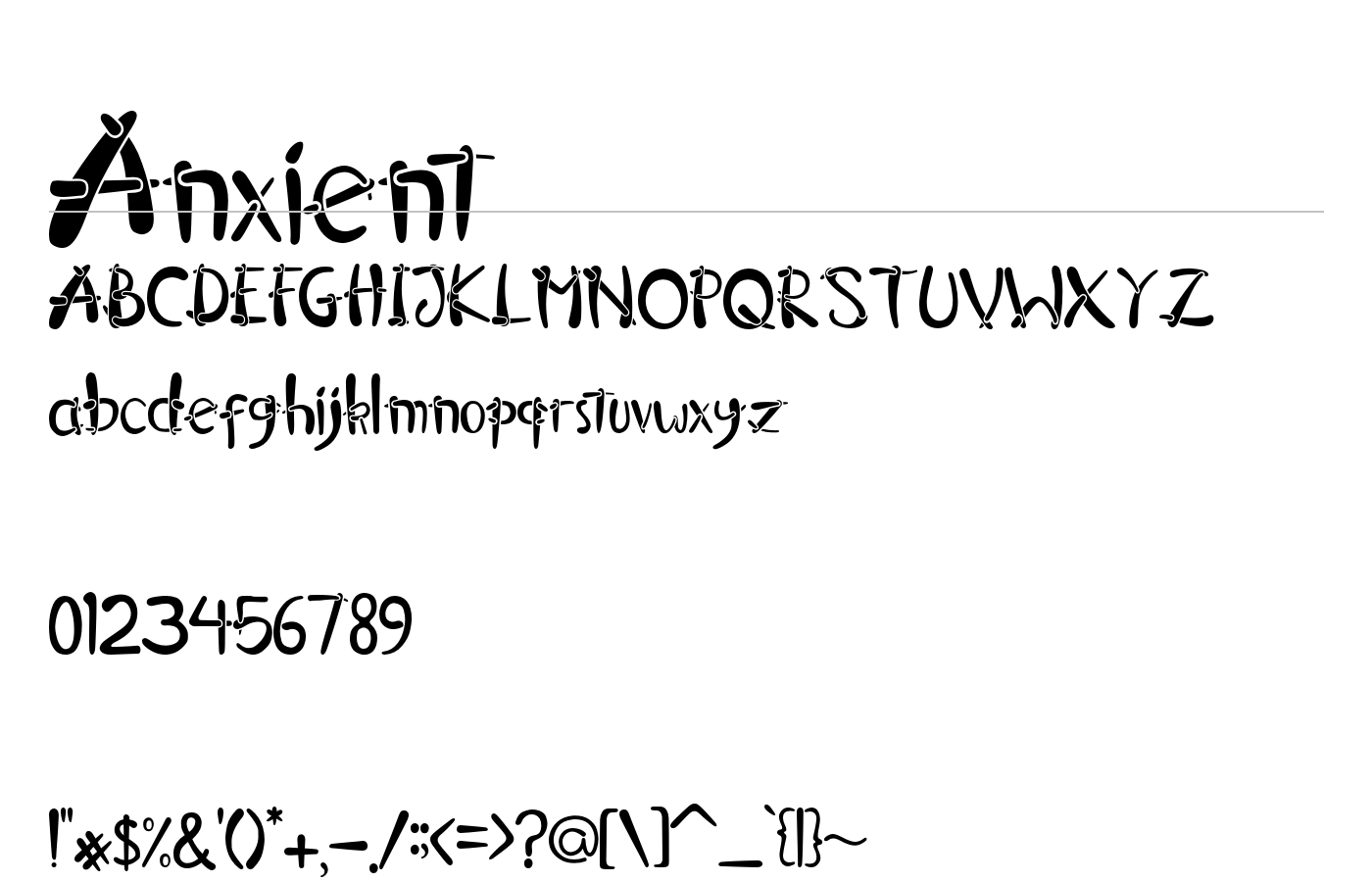
Anxient Font is a playful and quirky handwritten sans serif typeface with a lightweight, uneven stroke style that adds a casual, artistic feel. Its tall, narrow letterforms feature unique, almost stitched or wrapped details that give it a distinctive and expressive character, perfect for projects needing a creative and informal touch. This font works well for logos, invitations, posters, or any design aiming to convey individuality and a fun, approachable vibe.
Anxient Font